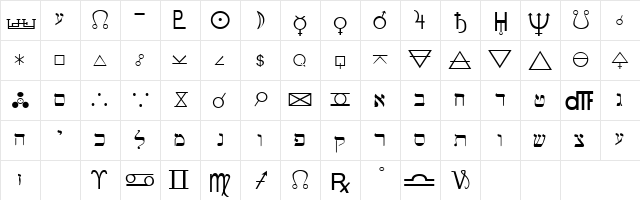
Hermetic Regular
Design Context for Hermetic Typeface
Hermetic takes a measured approach to typography — its balanced proportions and neutral character make it a reliable workhorse for both digital and print work.